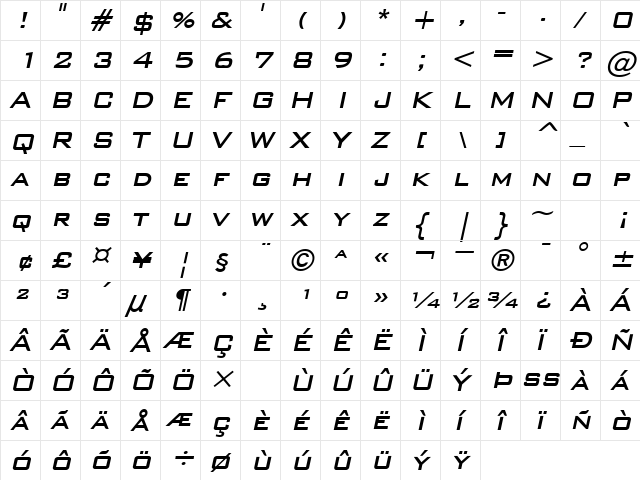
WallStreet BoldItalic Font Preview
Design Context for WallStreet Typeface
WallStreet offers clean, dependable letterforms without strong stylistic allegiance, making it a practical choice for designers who need flexibility. The dynamic lean of this cut emphasises speed and emphasis in any layout. The heavy weight commands attention and anchors typographic hierarchies.